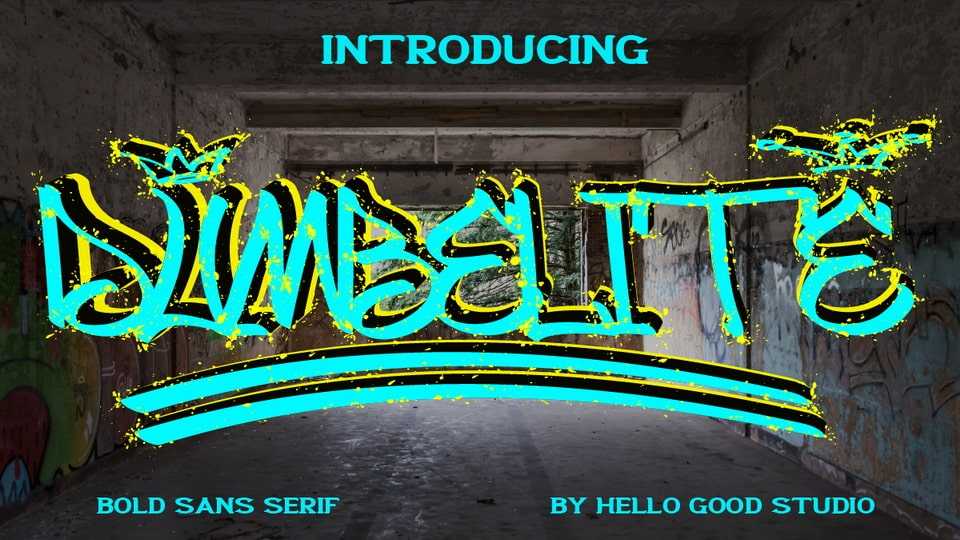
Download Dumbelite font, a rebellious and authentic handwritten typeface that captures the gritty spirit of urban street art. Dumbelite font brings the vibrant essence of the streets to your designs, making it the perfect choice for projects that demand an urban and edgy aesthetic.
Designer: Studio Hello Good